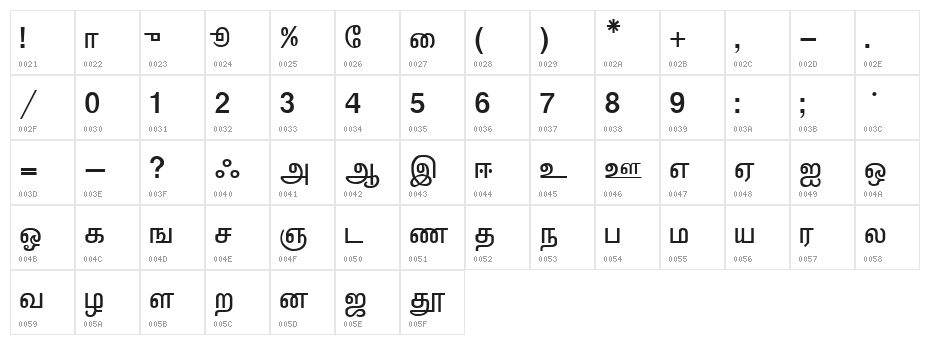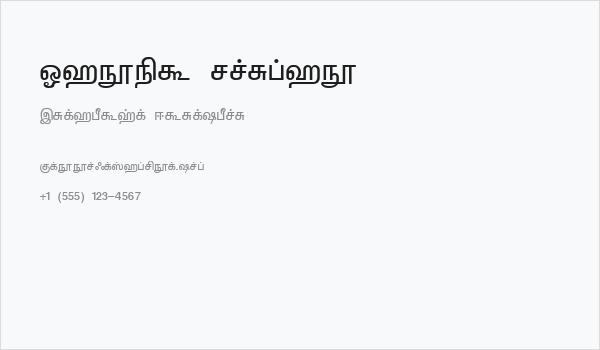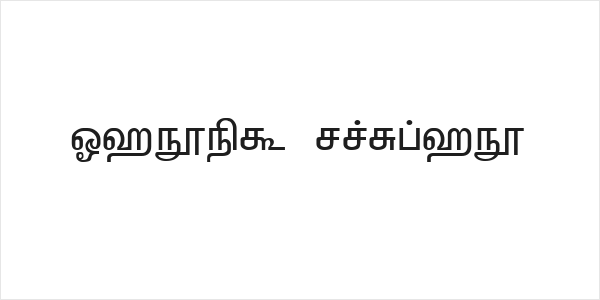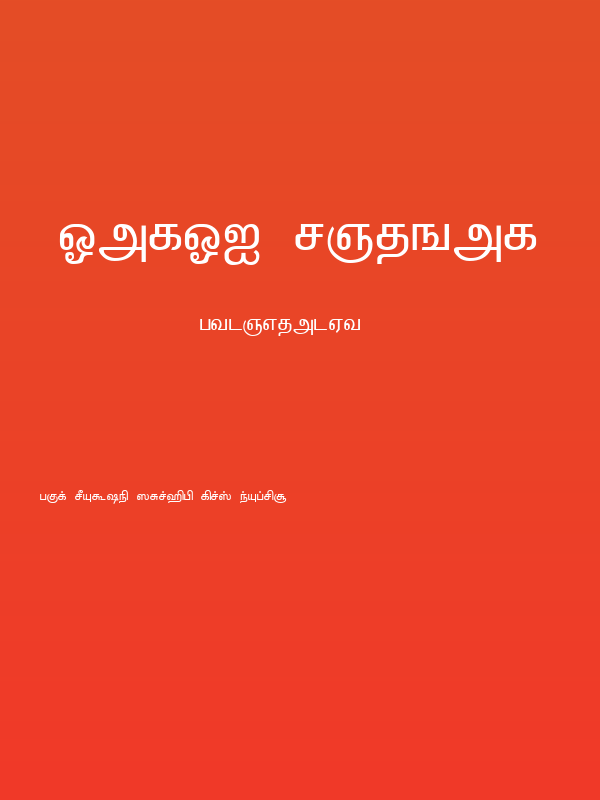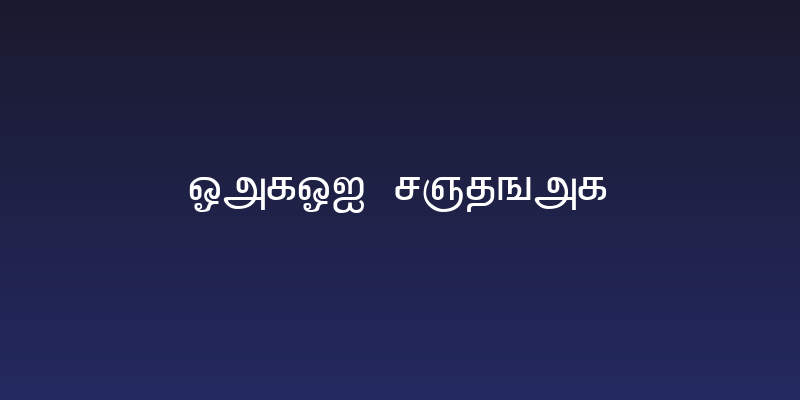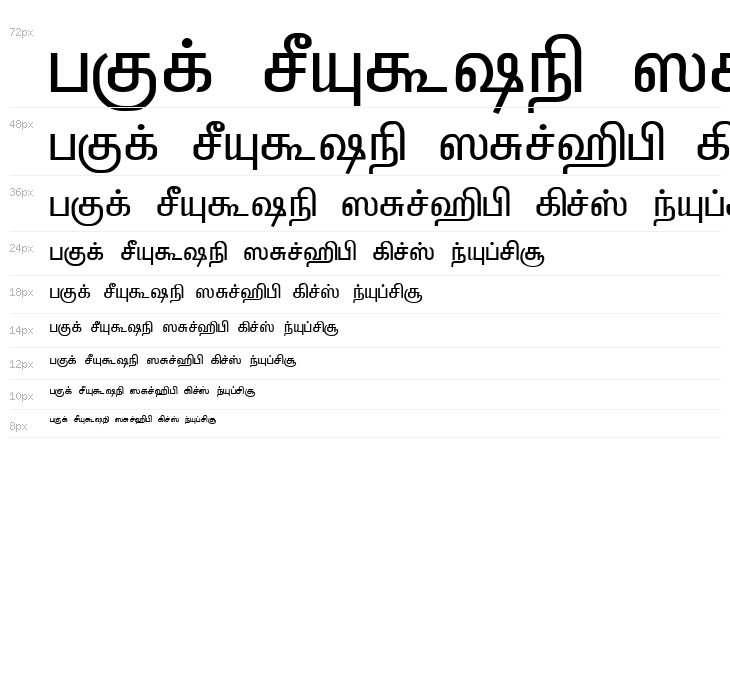
Kalki Normal Font
Kalki Normal Description
This font features a clean and modern design with a focus on readability. The characters are well-proportioned, with a balanced mix of curves and straight lines that provide a harmonious appearance. The font includes a comprehensive set of Tamil characters, numerals, and punctuation marks, making it versatile for various uses. The strokes are consistent in thickness, offering a uniform look across all characters. The spacing between characters is normal, ensuring clarity and legibility in both small and large sizes.
| Proposed Projects | Ideal for use in digital content, print media, signage, and branding projects that require a clear and modern Tamil typeface. |